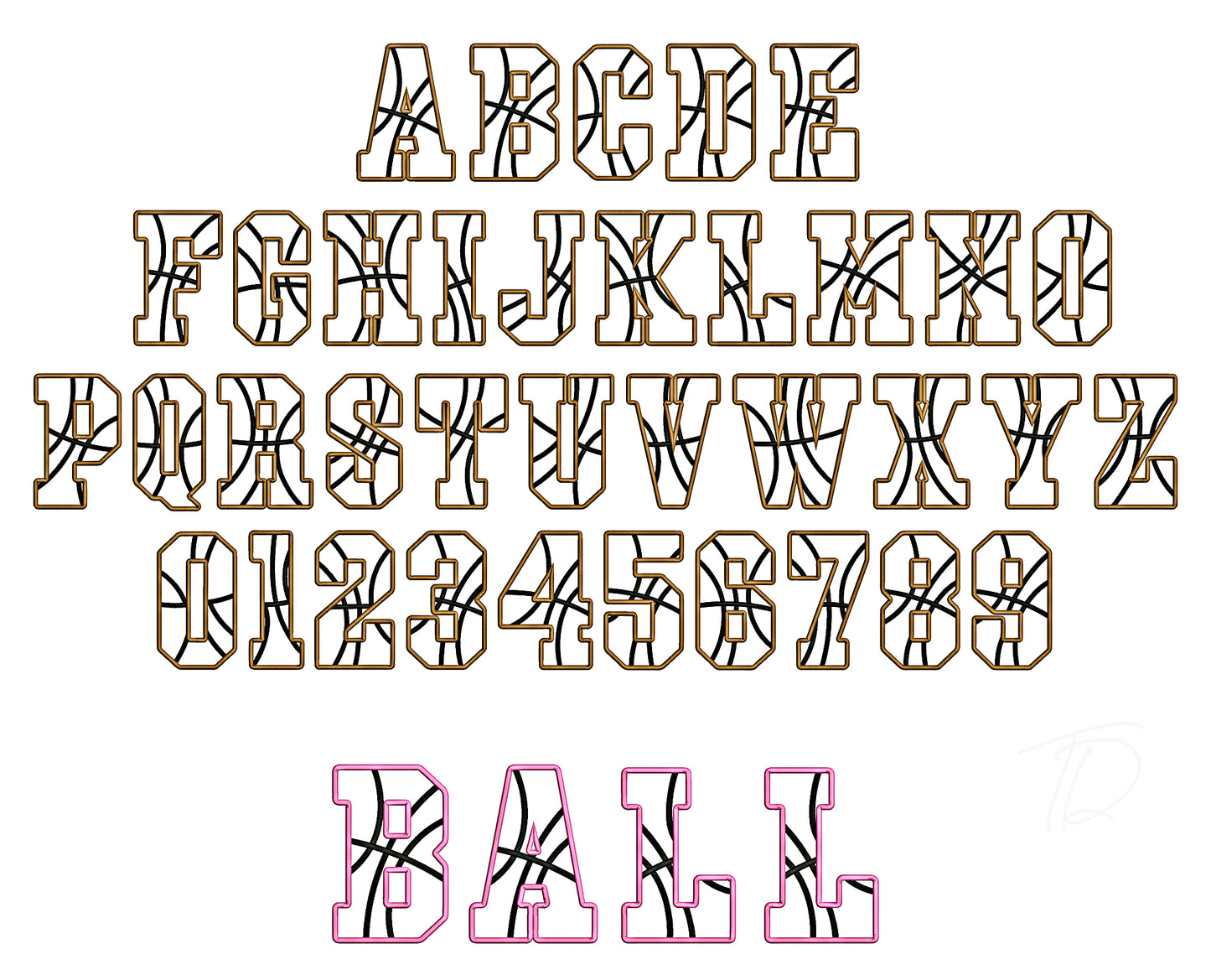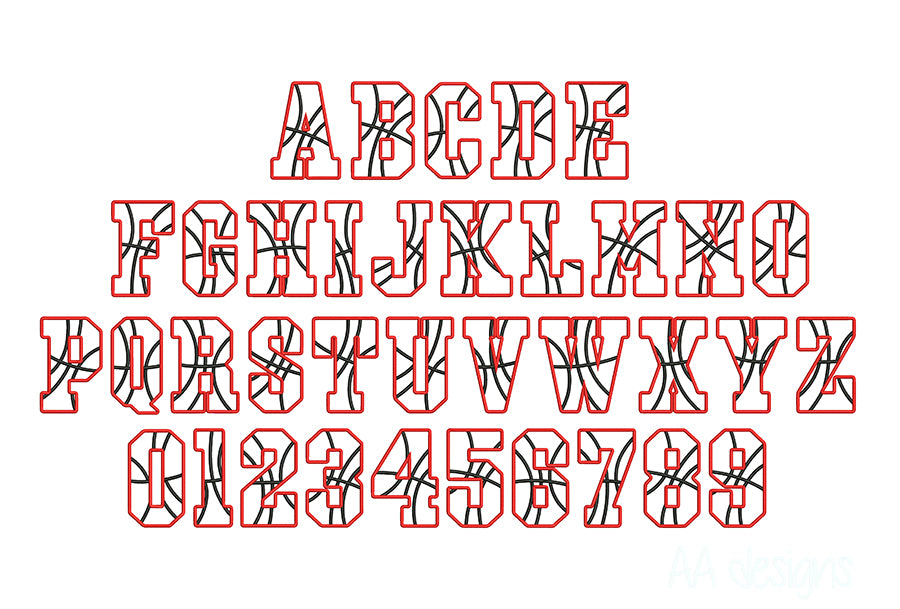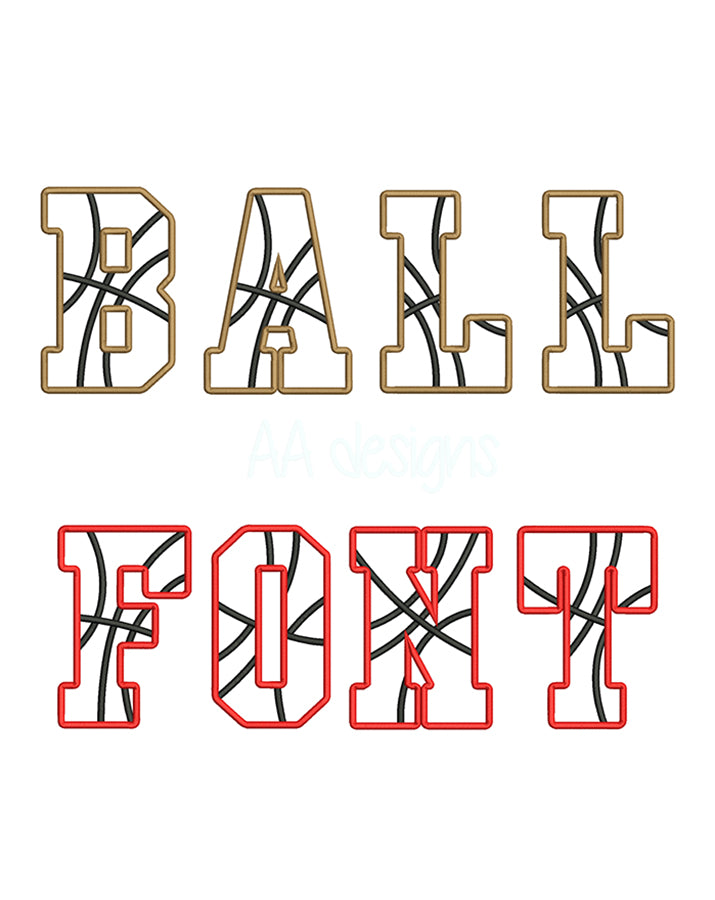
Basketball Applique Embroidery Font
Score big on your next project with our Basketball Applique Embroidery Font — a bold, sporty alphabet designed specifically for applique machine embroidery. Built for team spirit, this font brings that classic court-side energy to jerseys, bags, towels, hats, and more.
- Applique-style construction for a layered, textured look with minimal stitch count
- Bold athletic letterforms inspired by classic basketball jersey typography
- Great for team names, player names, monograms, and sports gear personalization
Whether you're outfitting a whole team or crafting a one-of-a-kind sports gift, this applique font delivers championship-level results every time.